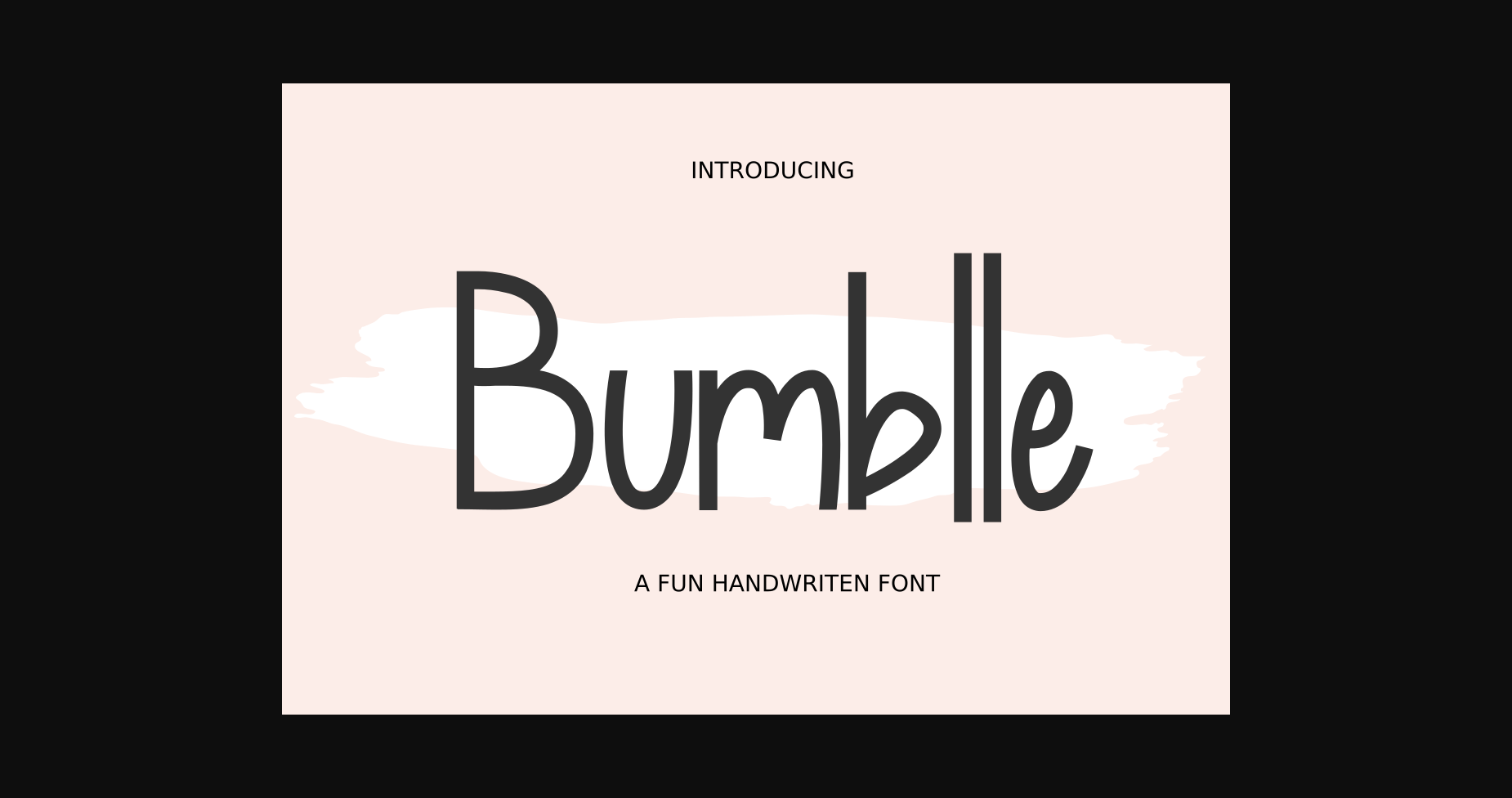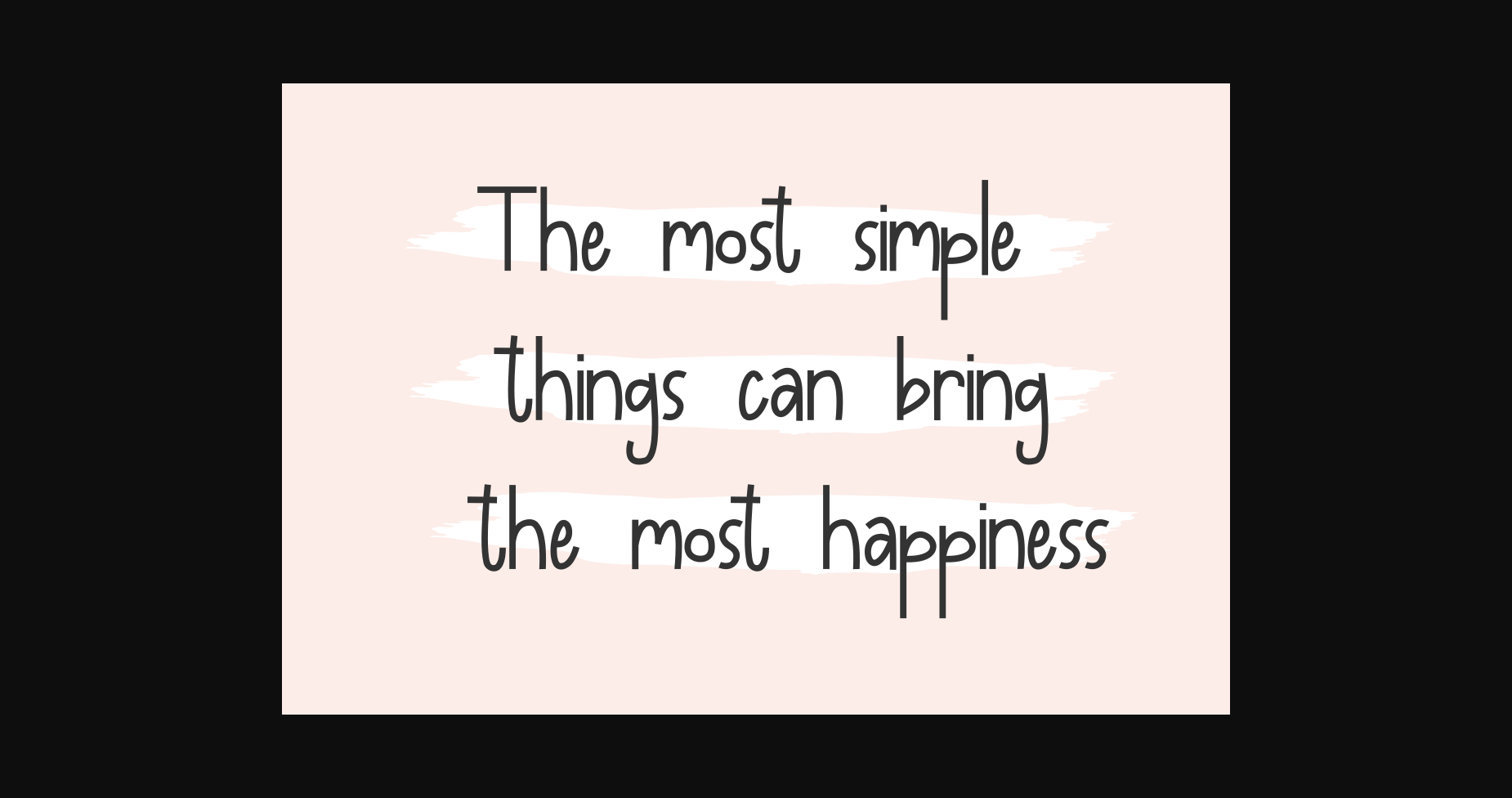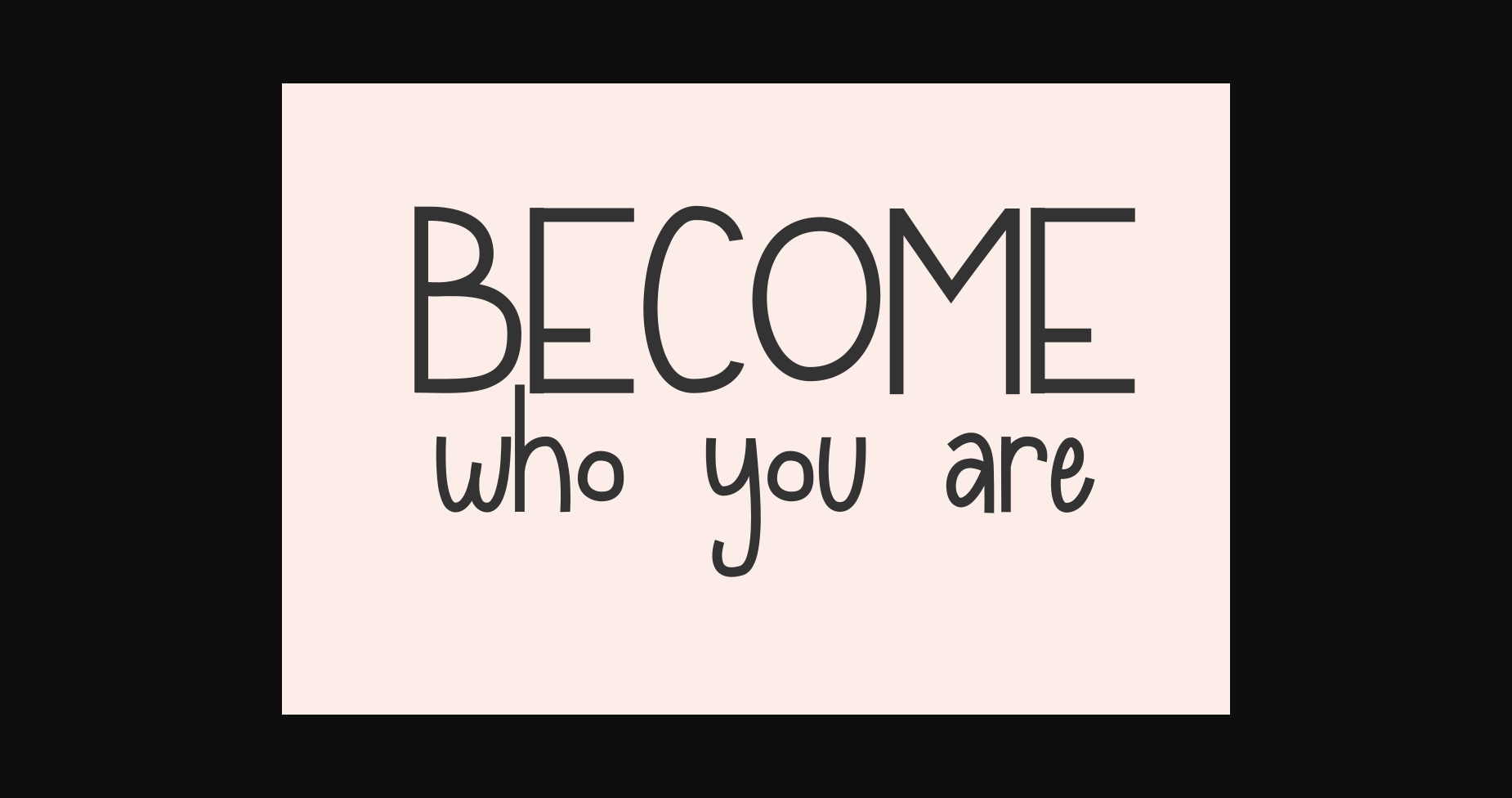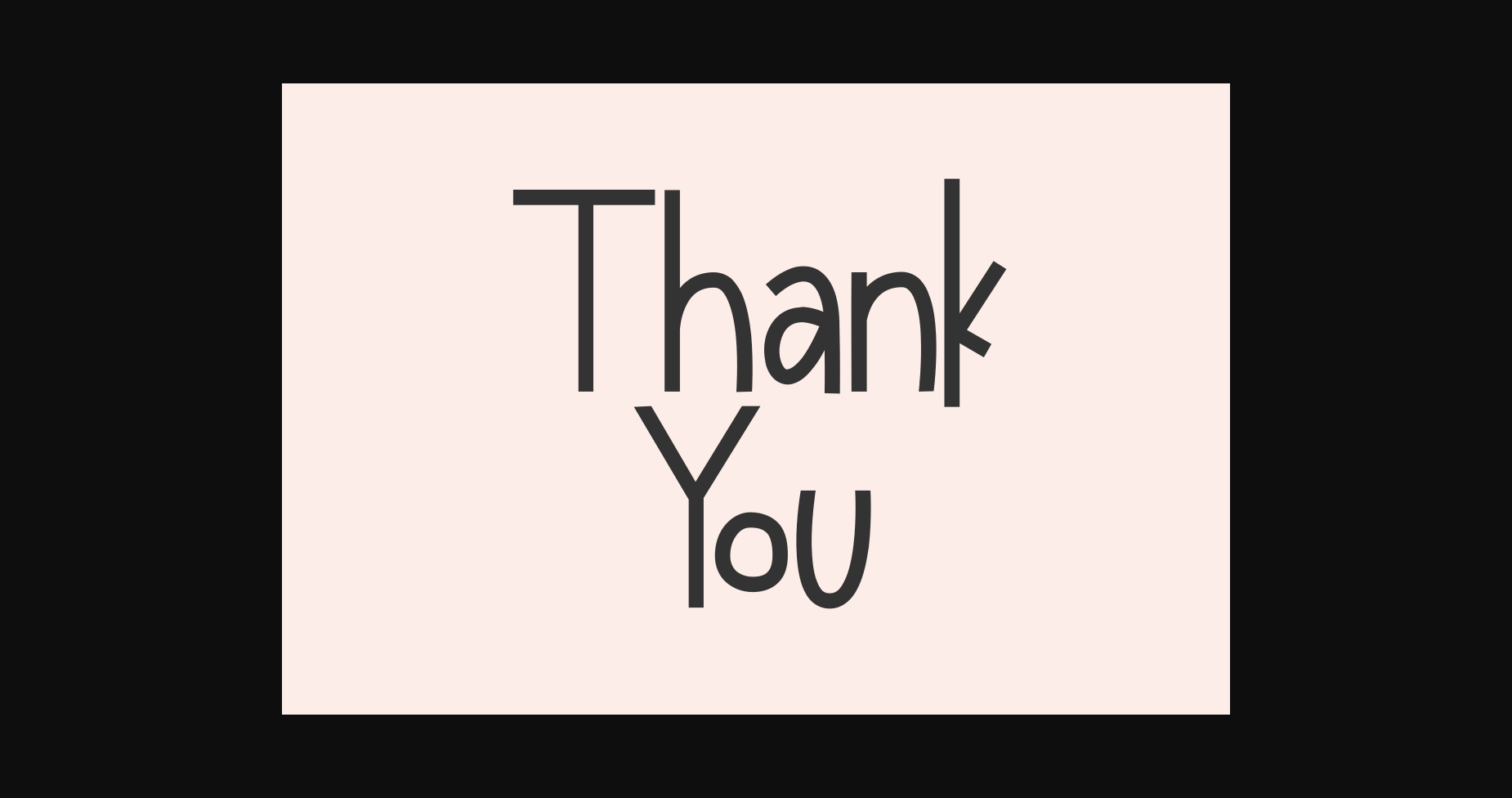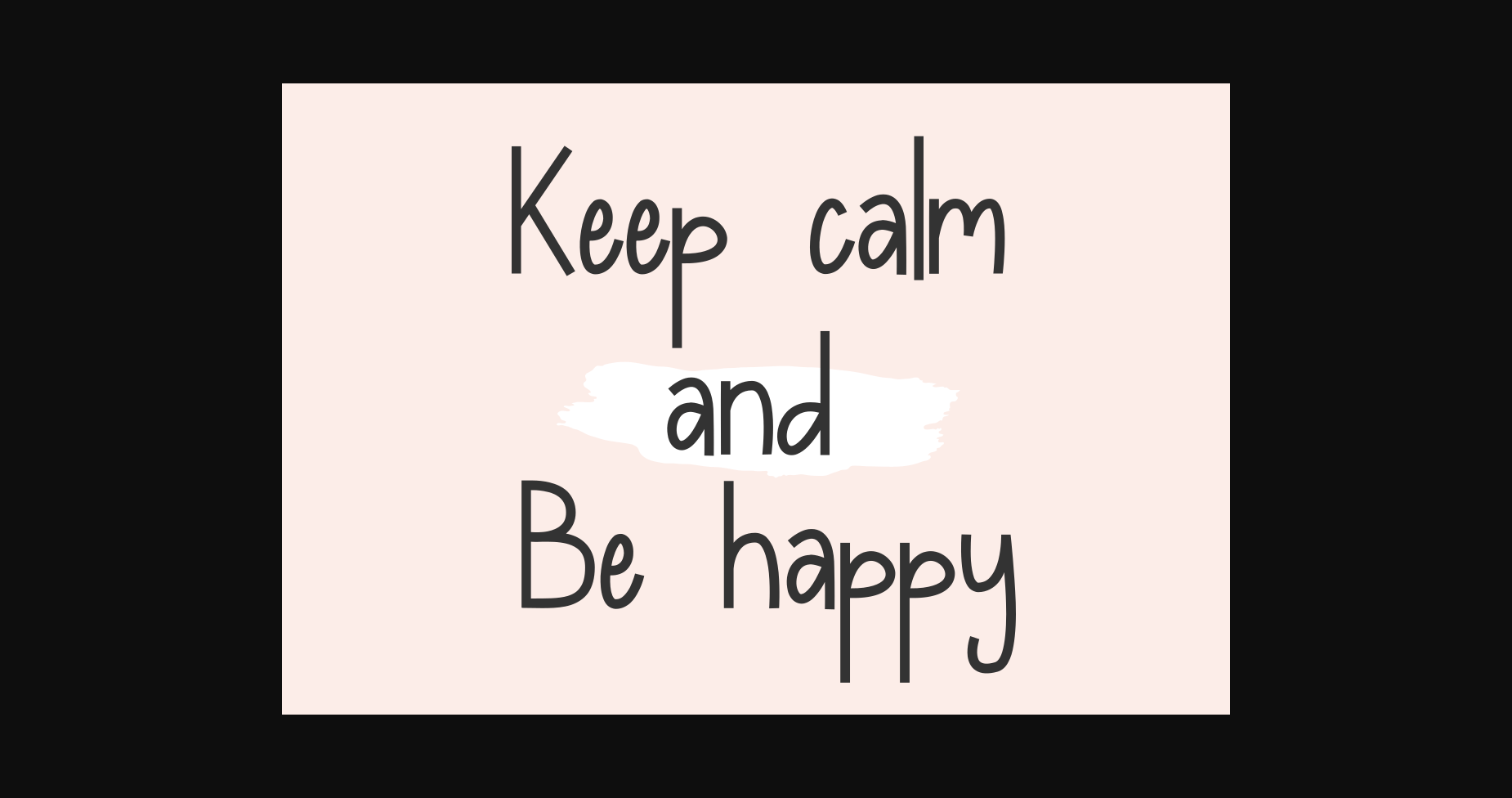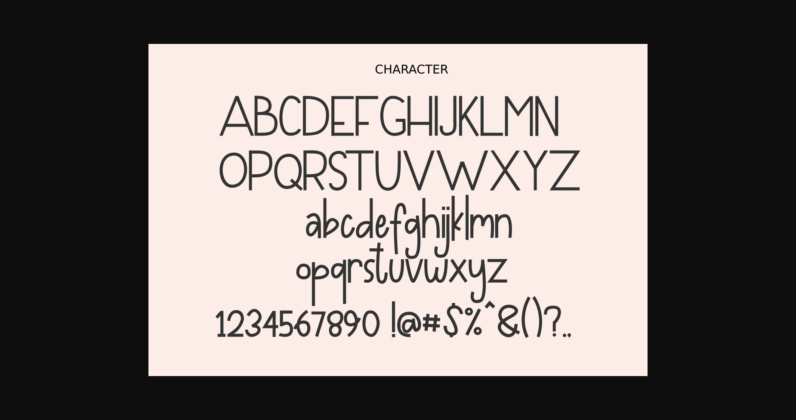
HomeSans Serif FontsBumblle Font Sans Serif Fonts Bumblle Font FacebookTwitterPinterestWhatsApp 1 of 8 ... Bumblle Font Poster 2... Bumblle Font Poster 3... Bumblle Font Poster 4... Bumblle Font Poster 5... Bumblle Font Poster 6... Bumblle Font Poster 7... Bumblle Font Poster 8... About Bumblle Font Bumblle is a playful and whimsical font with an adorable charm. Fall in love with its unique quirks! DOWNLOAD NOW People also explored Candle Mustard Font Kingston Signature Font Caveman Mageline Font Big Scare Font Christian Font Moshi Moshi Font Lova Lova Font Cybernetic Font 159 0 TagsBumblleBumblle Font Previous articleGood Morning FontNext articleBale Home Font LEAVE A REPLY Cancel reply Comment: Please enter your comment! Name:* Please enter your name here Email:* You have entered an incorrect email address! Please enter your email address here Website: Save my name, email, and website in this browser for the next time I comment. Personal Use Free Hearted Personal Use Free Read more about this font BD Beans Personal Use Free Read more about this font Velasco Personal Use Free Read more about this font Cute Messy Personal Use Free Read more about this font BLOG Using Fonts in Digital Marketing: Tips to Strengthen Your Brand Identity In the realm of digital marketing, every visual element plays a crucial role in shaping a brand's identity, and fonts are no exception. The... Top 7 Google Fonts Alternatives for Faster and Privacy-Friendly Web Design (2025) Exploring Font Trends To increase your work productivity, choose the most readable fonts.